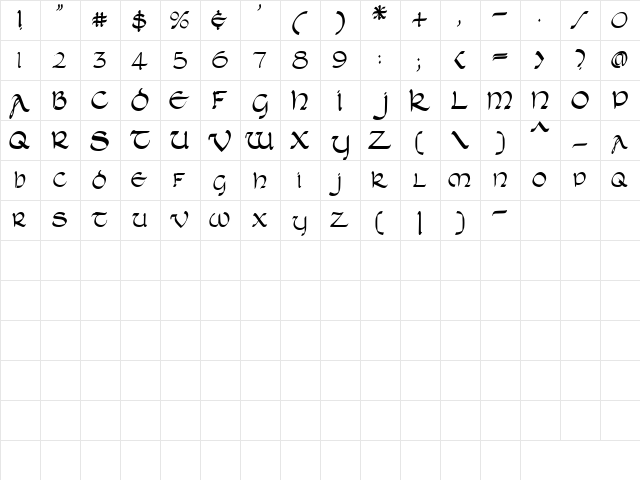
Lindsay Unicial Regular
Design Context for Lindsay Unicial Typeface
Lindsay Unicial is a composed and adaptable typeface that performs quietly and consistently across a wide range of design contexts.
Pro Tip: Use Lindsay Unicial in both headline and body roles to test its range before committing to a single application.